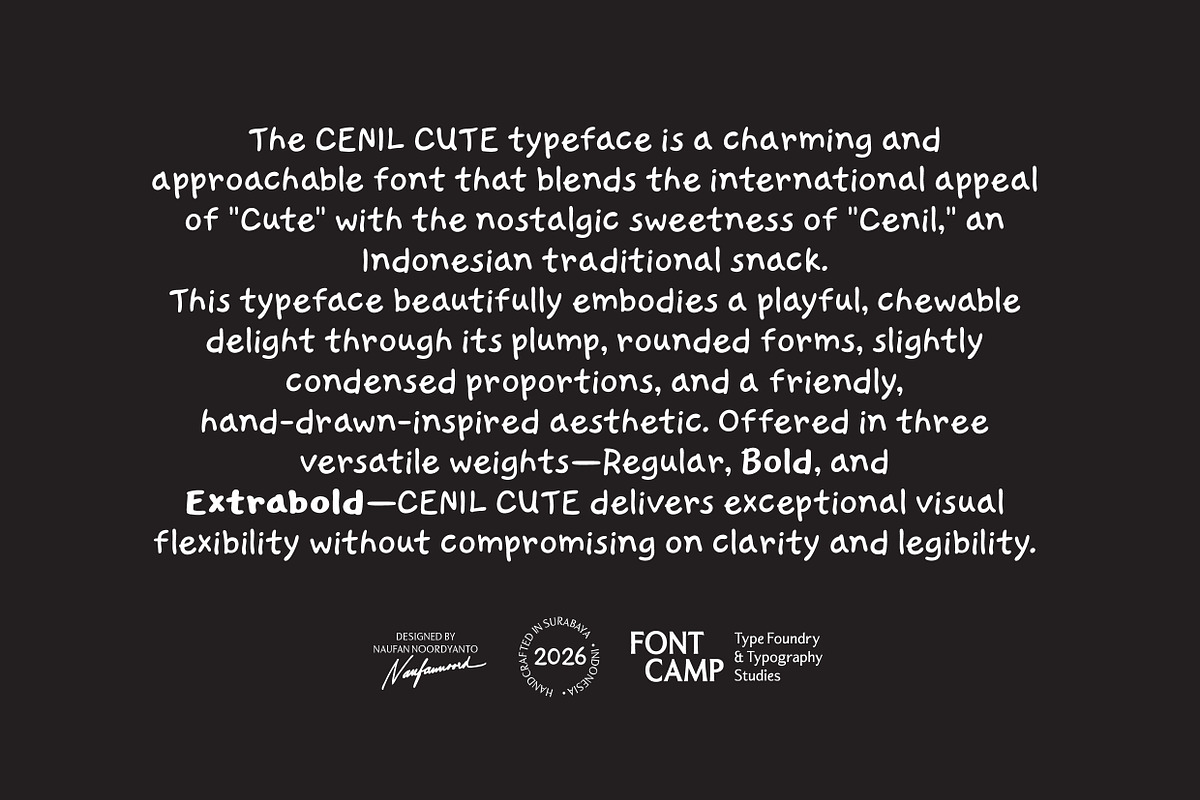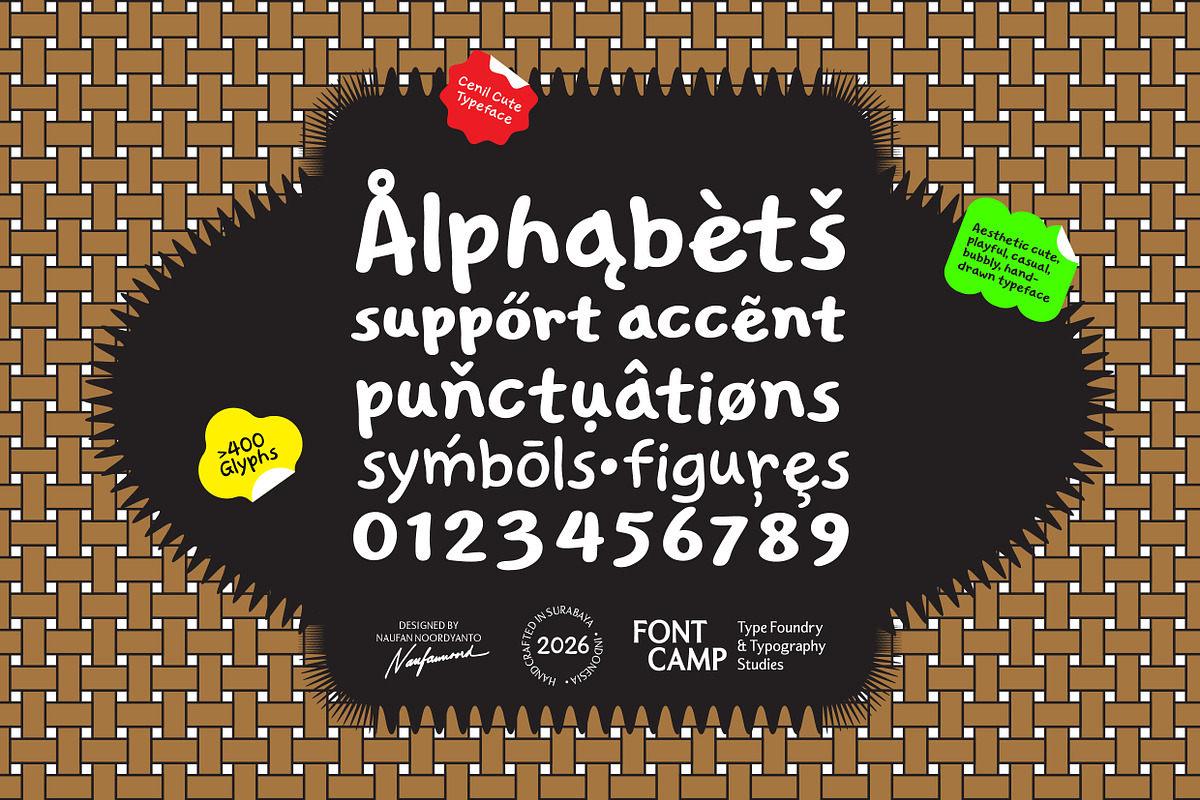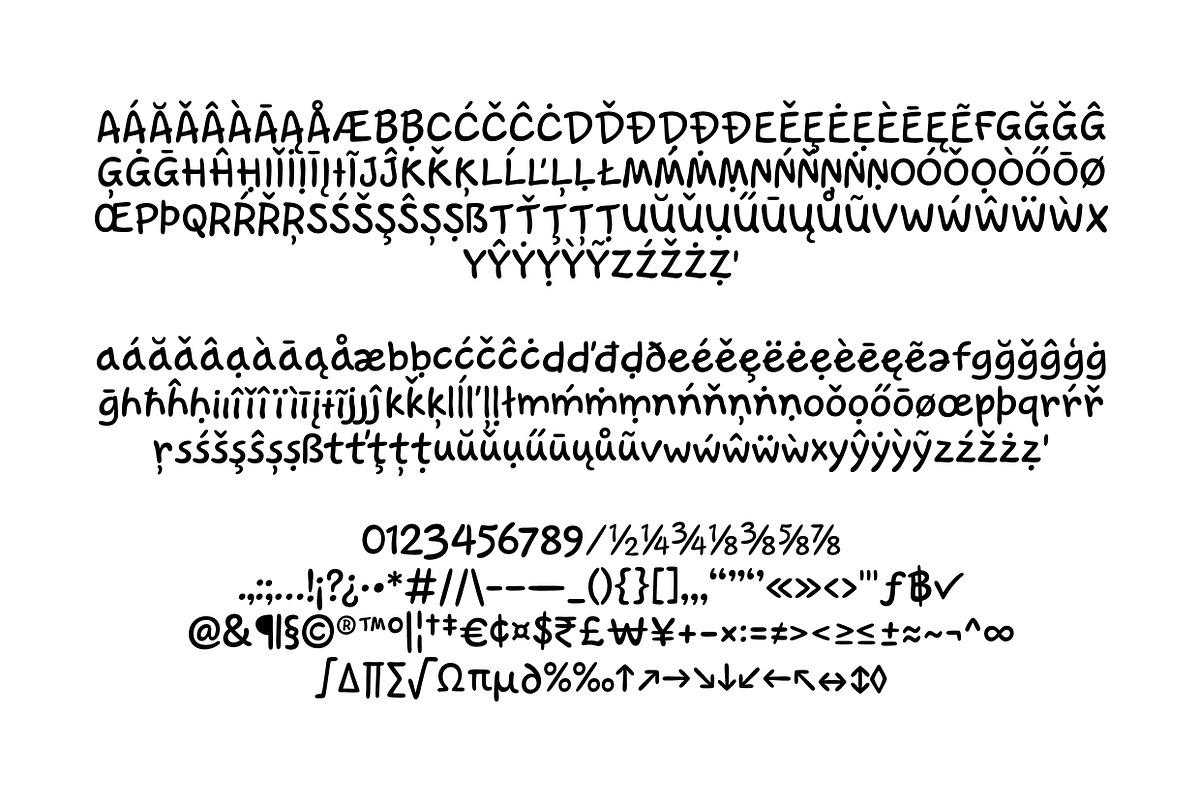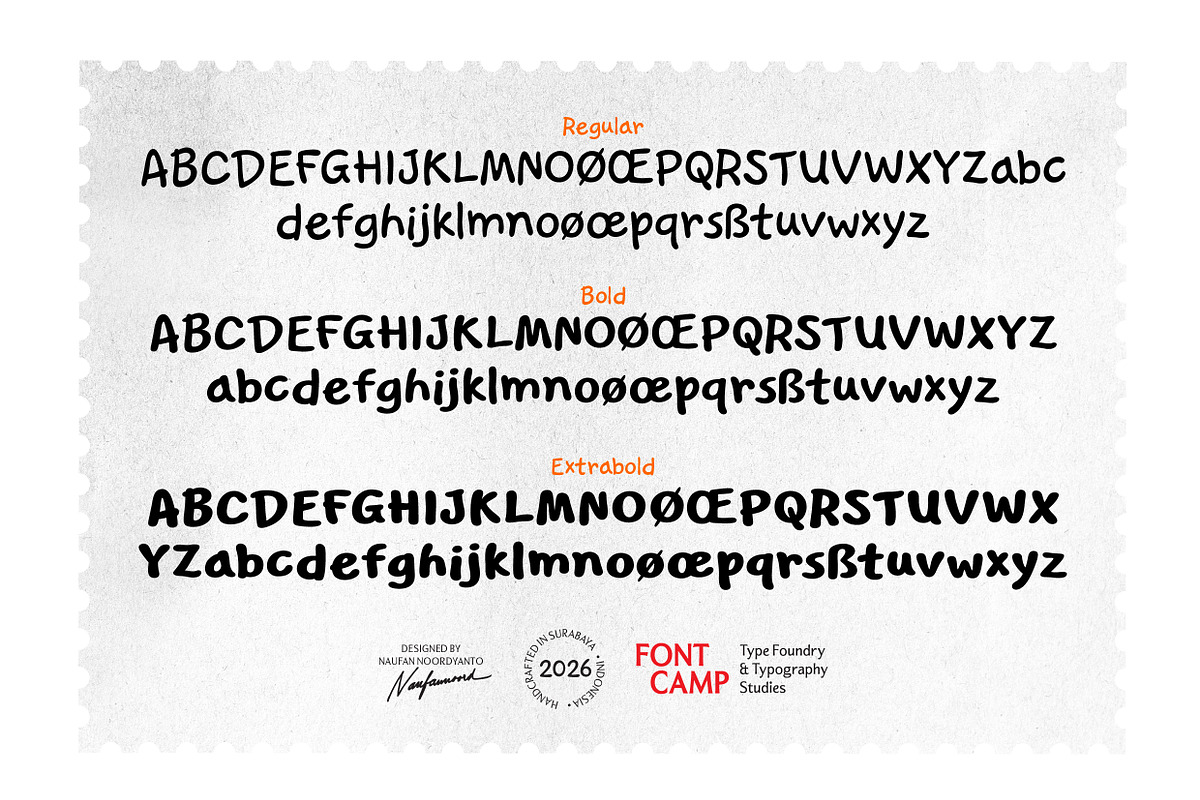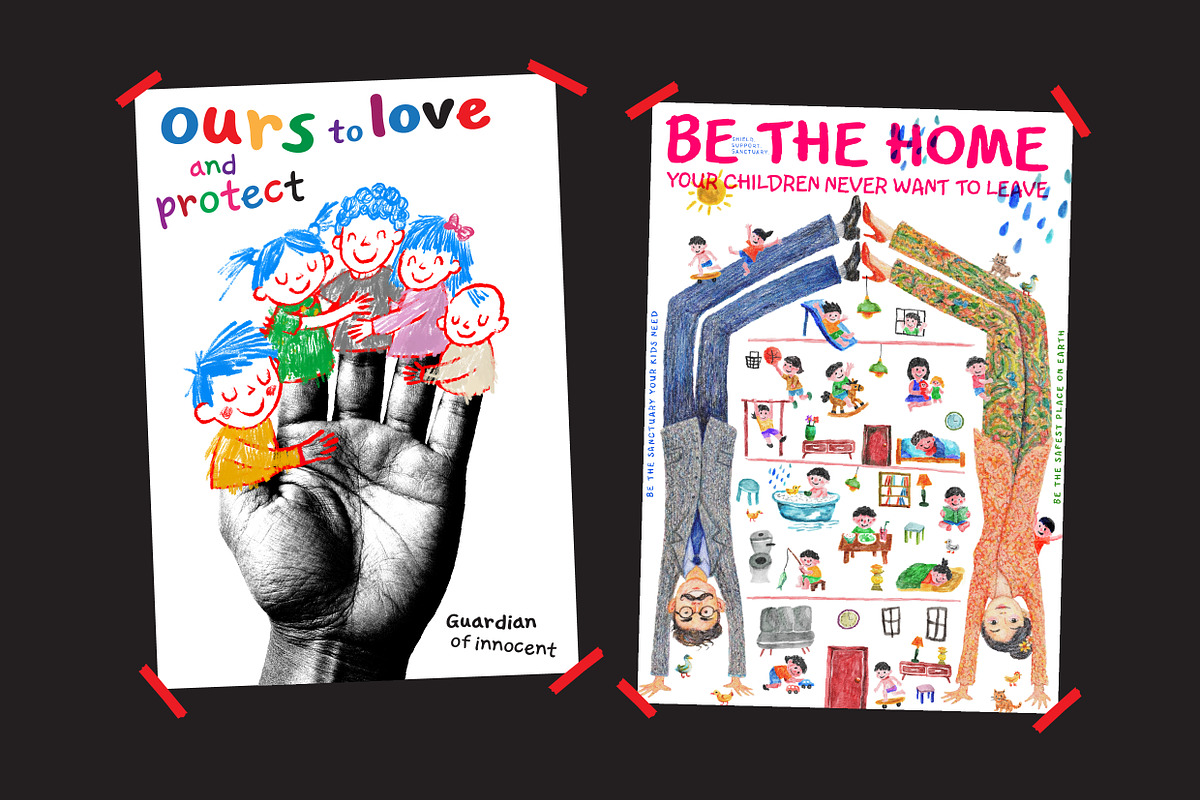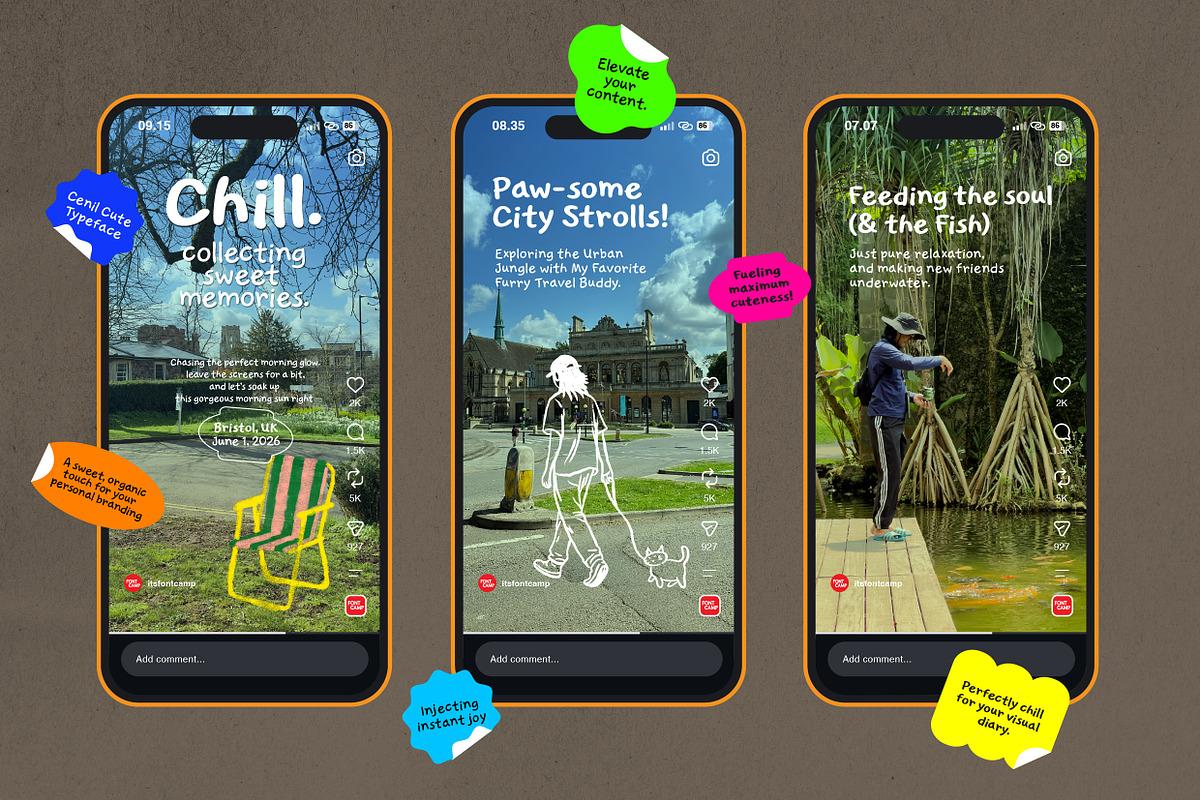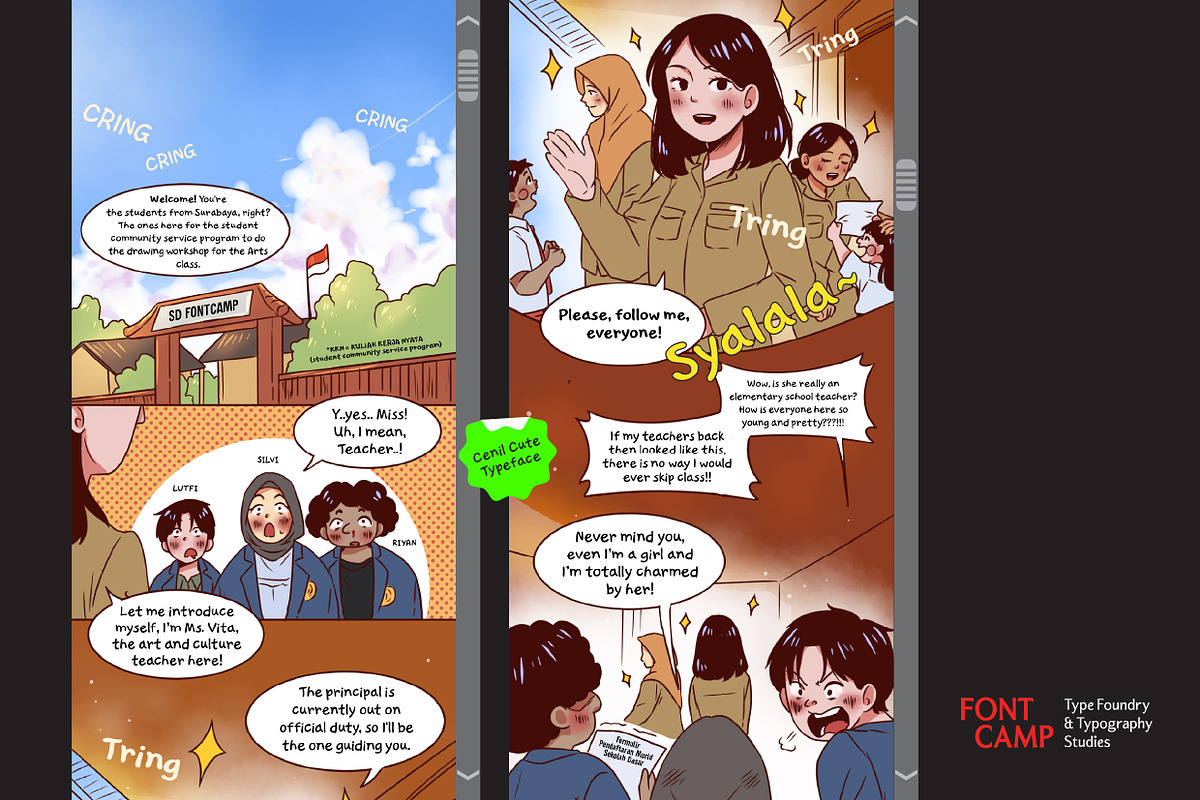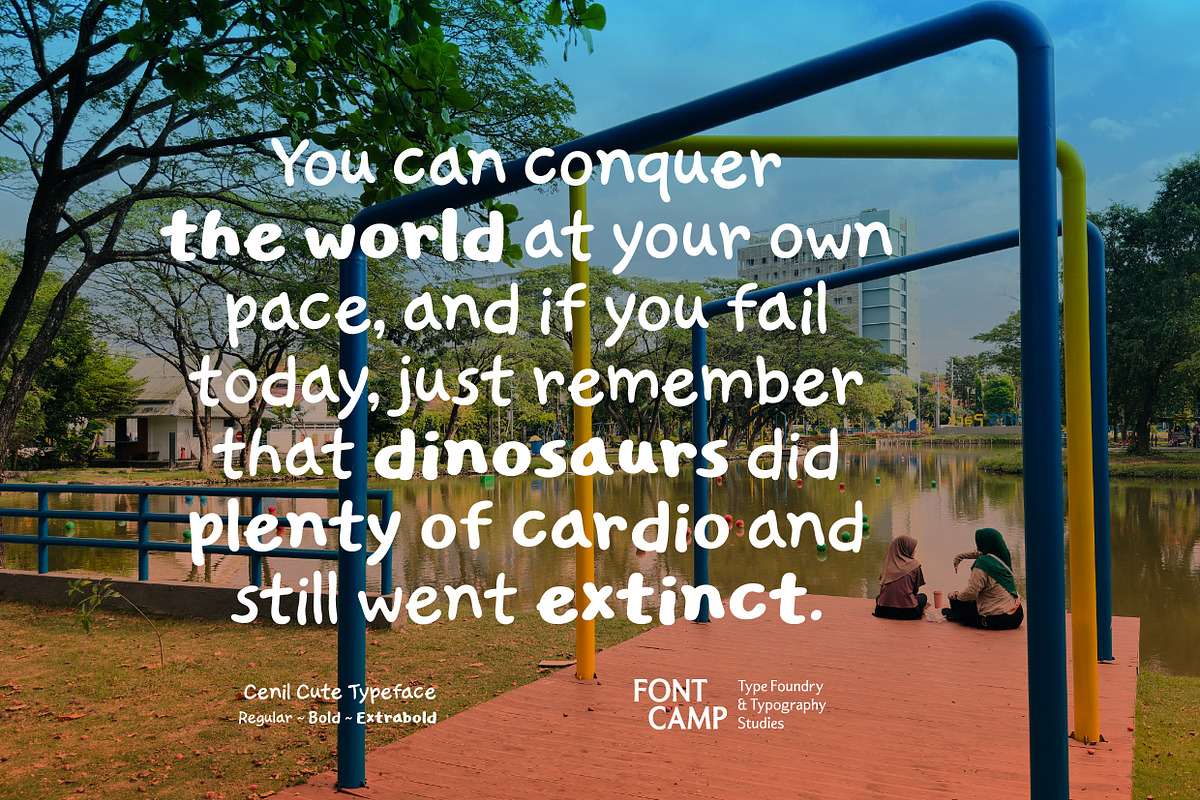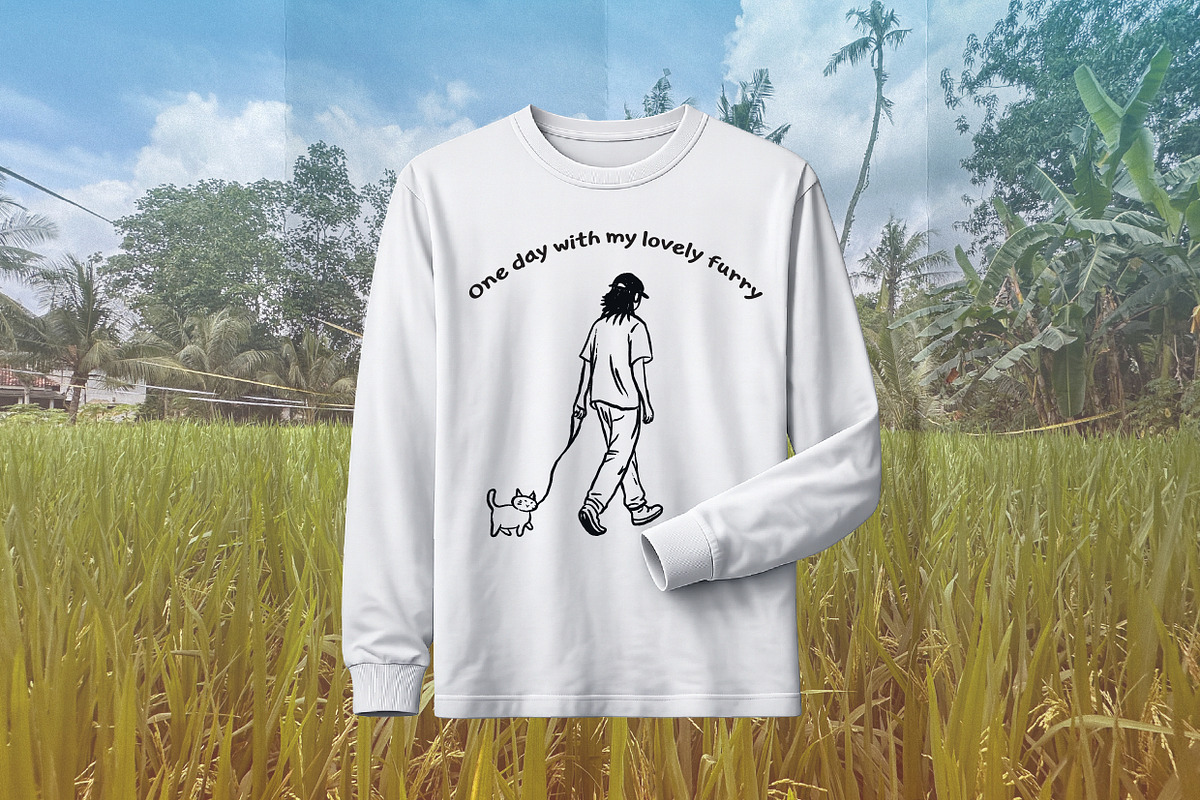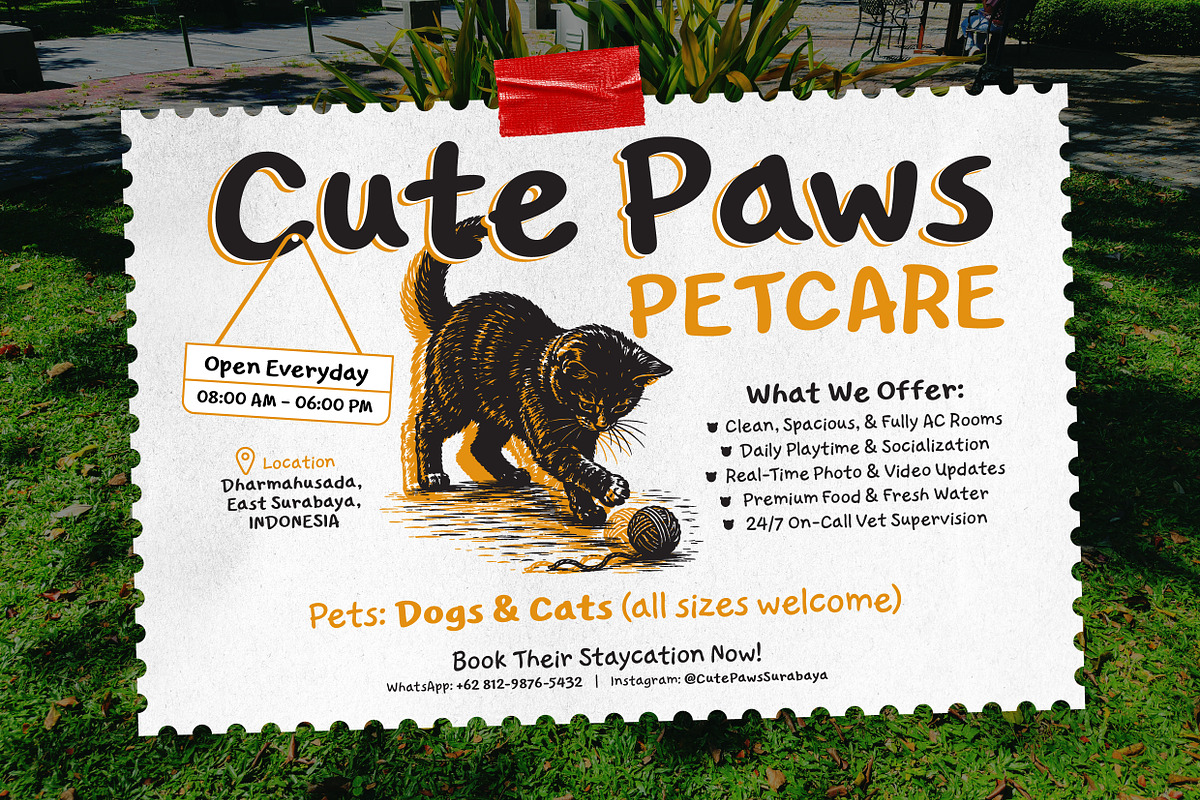
Cenil Cute Font
Introducing the "Cenil Cute" Font.
DESCRIPTION
Cenil Cute is a charming, playful display typeface defined by its bouncy, soft geometry and approachable visual warmth. Its most prominent feature is a delightfully rounded structure and organic, hand-drawn lines, giving the text a feeling of chewing-satisfaction, cheerful movement, and friendly energy. The letterforms are naturally plump and inviting with slightly condensed, soft-edged structures, allowing for tight, comforting text layouts that maintain an engaging yet gentle presence.
A distinctly personal touch shines through its subtle imperfections, variable stroke weights, and bubbly rhythm at the edges of each letter. The unique curves and lively horizontal strokes create a sweet, striking, and spirited aesthetic. This cozy and energetic structure makes Cenil Cute an ideal choice for social media content, daily video vlogs, children's storybooks, comic dialogues, creative poster headlines, eye-catching packaging, or any modern branding project that embraces a relaxed, free-spirited vibe.
TECHNICAL SPECIFICATIONS & CAPABILITIES
Expansive character library: engineered with 433 meticulously crafted glyphs, providing comprehensive coverage for expressive displays, symbols, and diverse punctuation across 3 distinct styles and 2 versatile versions.
Dynamic Multi-Style architecture: thoughtfully designed across a versatile family comprising 3 precise weights (Regular, Bold, and Extrabold) available in 2 distinct surface textures: a pristine "Clean" version and a tactile, hand-drawn "Rough" version (Rough Regular, Rough Bold, and Rough Extrabold).
Global linguistic support: built with an extended character set to ensure seamless compatibility with multiple languages, supporting diverse diacritics and special ligatures.